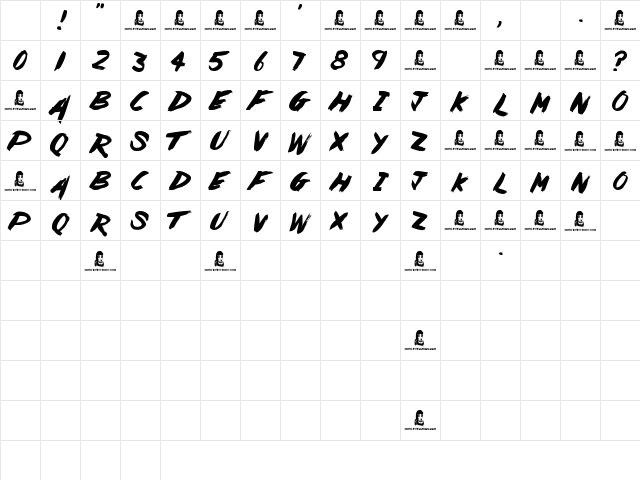
Painted Lady is a composed and adaptable typeface that performs quietly and consistently across a wide range of design contexts.
Pro Tip: Use Painted Lady in both headline and body roles to test its range before committing to a single application.
Who designed the Painted Lady Regular font?
This font was published by Jonathan S. Harris. Check the technical specs section for copyright and designer details.